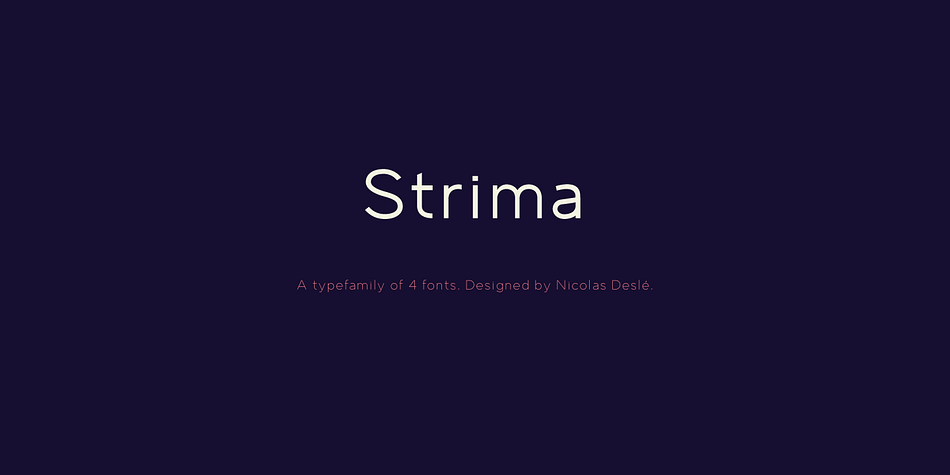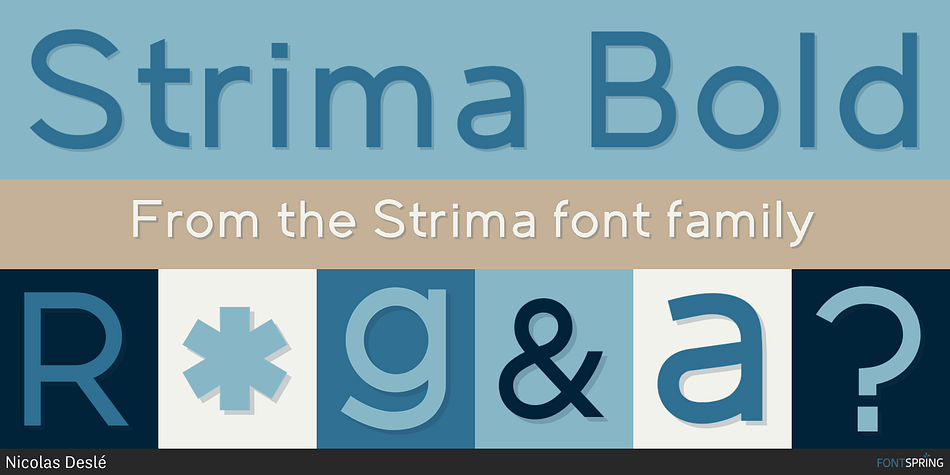
Strima Bold
Strima is a sans serif font family. This typeface has four styles and was published by Nicolas Deslé.
Strima is a geometric sans serif typeface that stands for minimalism and legibility.
With over 1000 glyphs and extensive language support Strima offers full professional typographic features.
The Strima family consists of 4 weights: light, book, medium and bold.